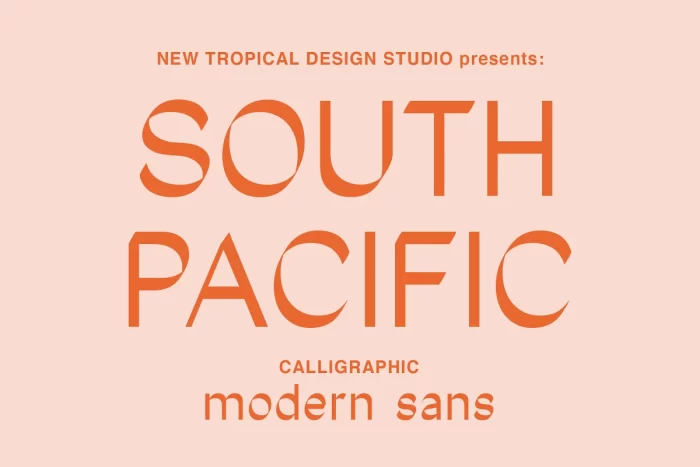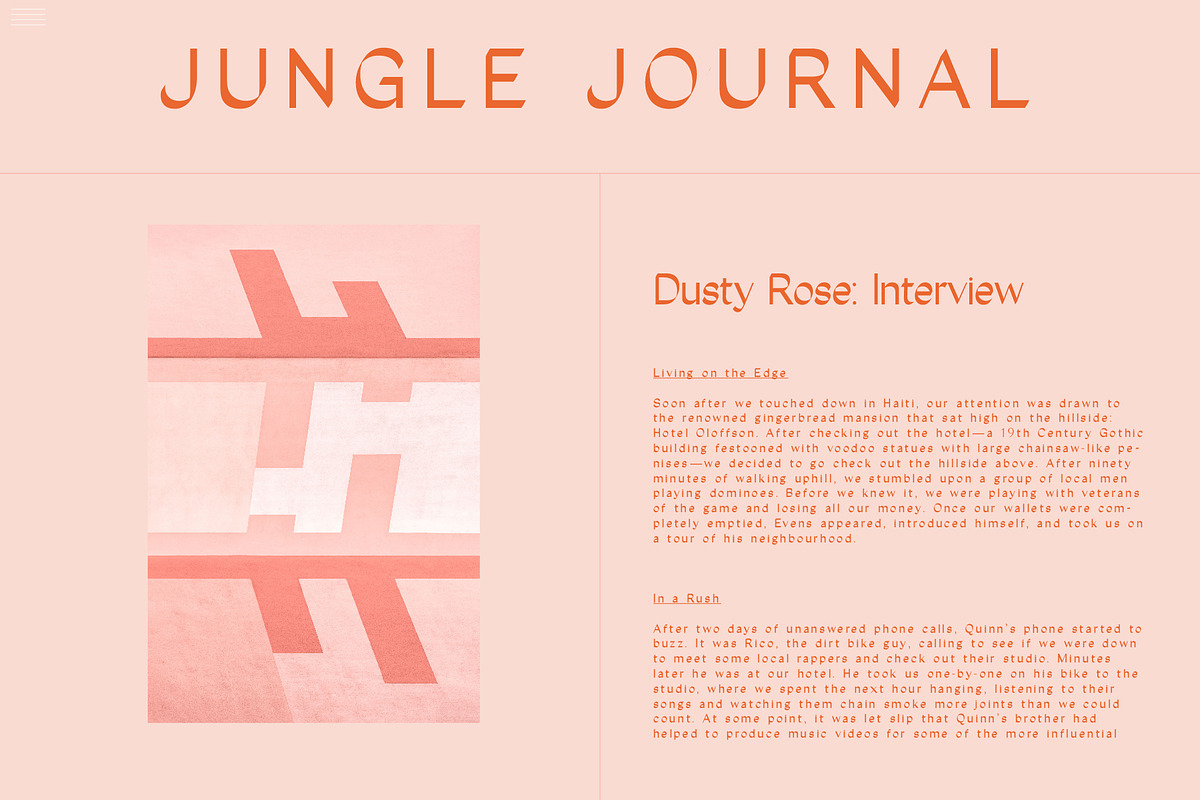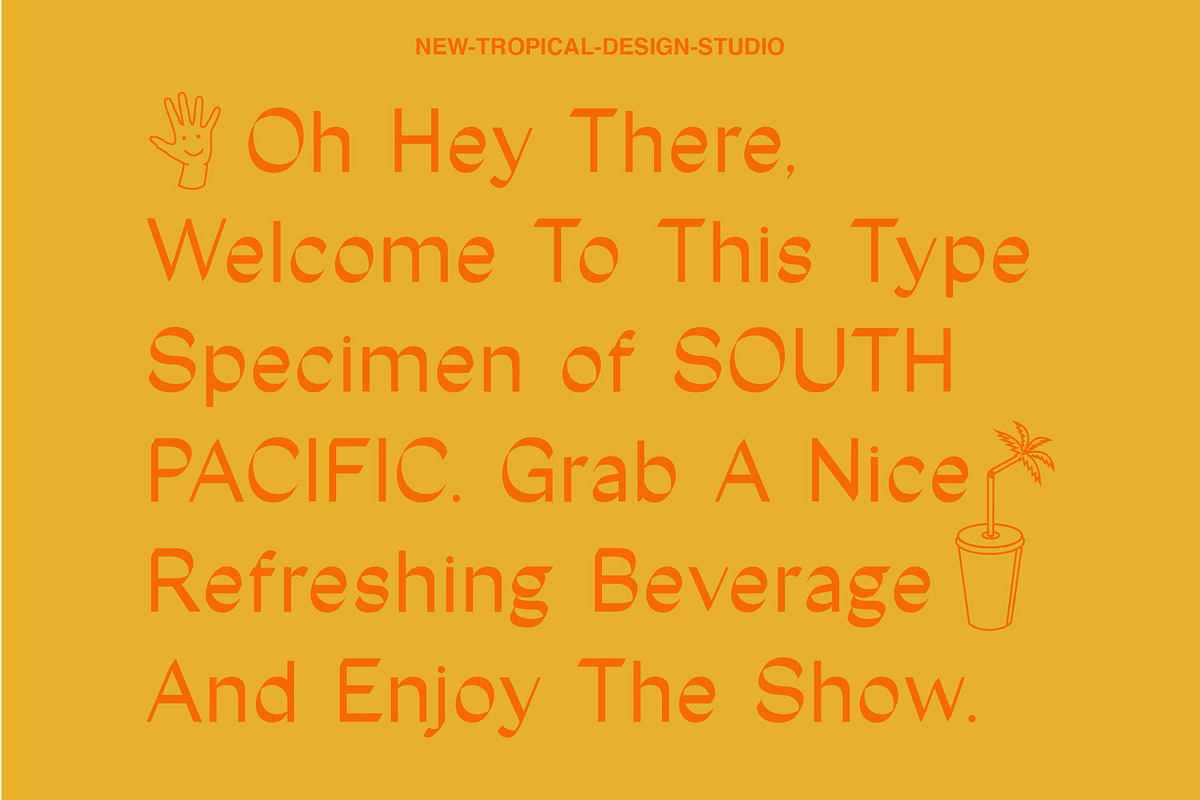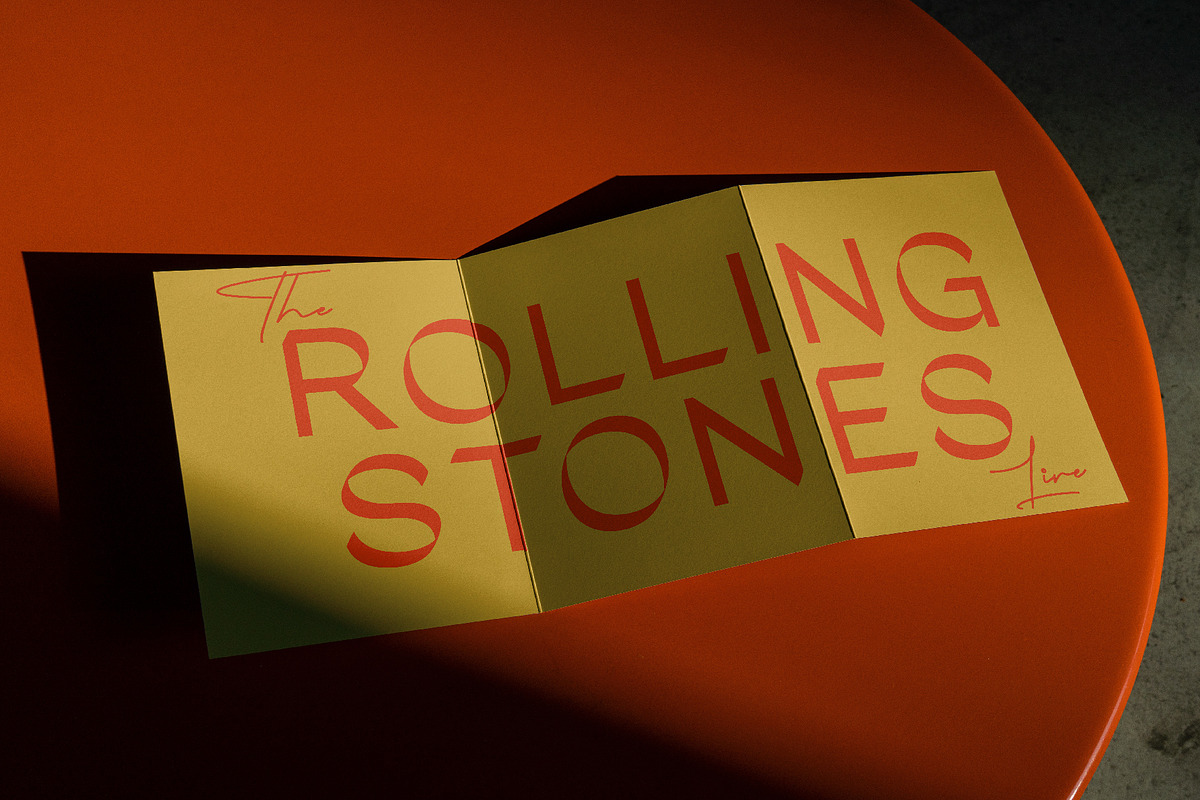
South Pacific is a modern calligraphic sans serif font. The angled calligraphic brush strokes create unique letterforms. Sharp angles mixed with overlapping curves create a typeface that is a little bit fun and a little bit modern.
It is suitable for use in a variety of design projects, such as logos, titles, paragraphs, and digital displays, with its ability to give a fresh and elegant look.